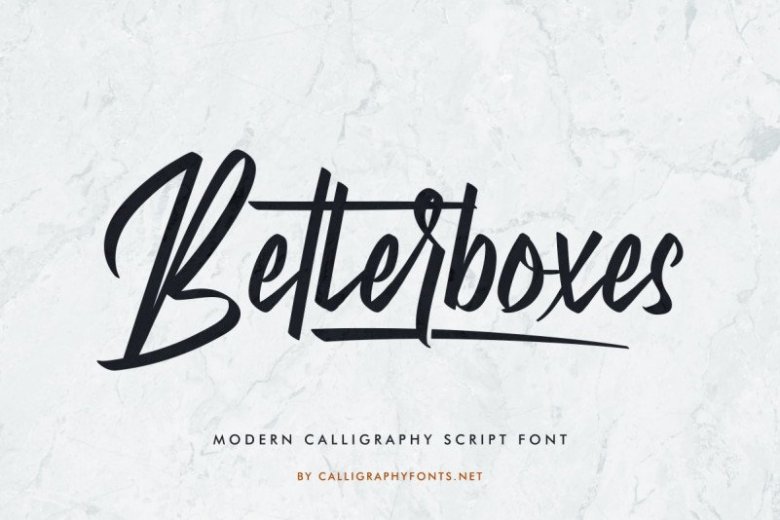
Betterboxes Font
Betterboxes Calligraphy Font
Betterboxes Calligraphy Font is an exclusive modern handmade brush calligraphy font. The style of this font are stylish, classic, elegant, luxury and strong brush font.